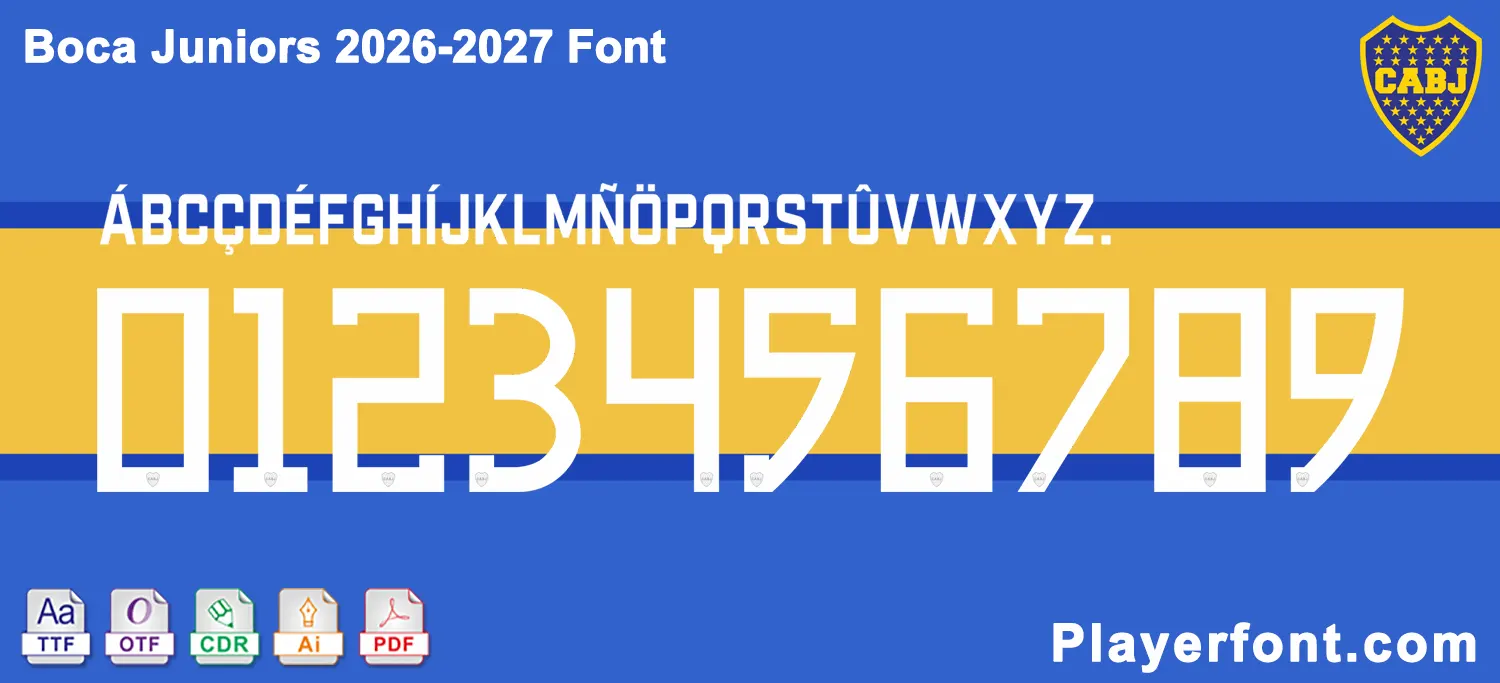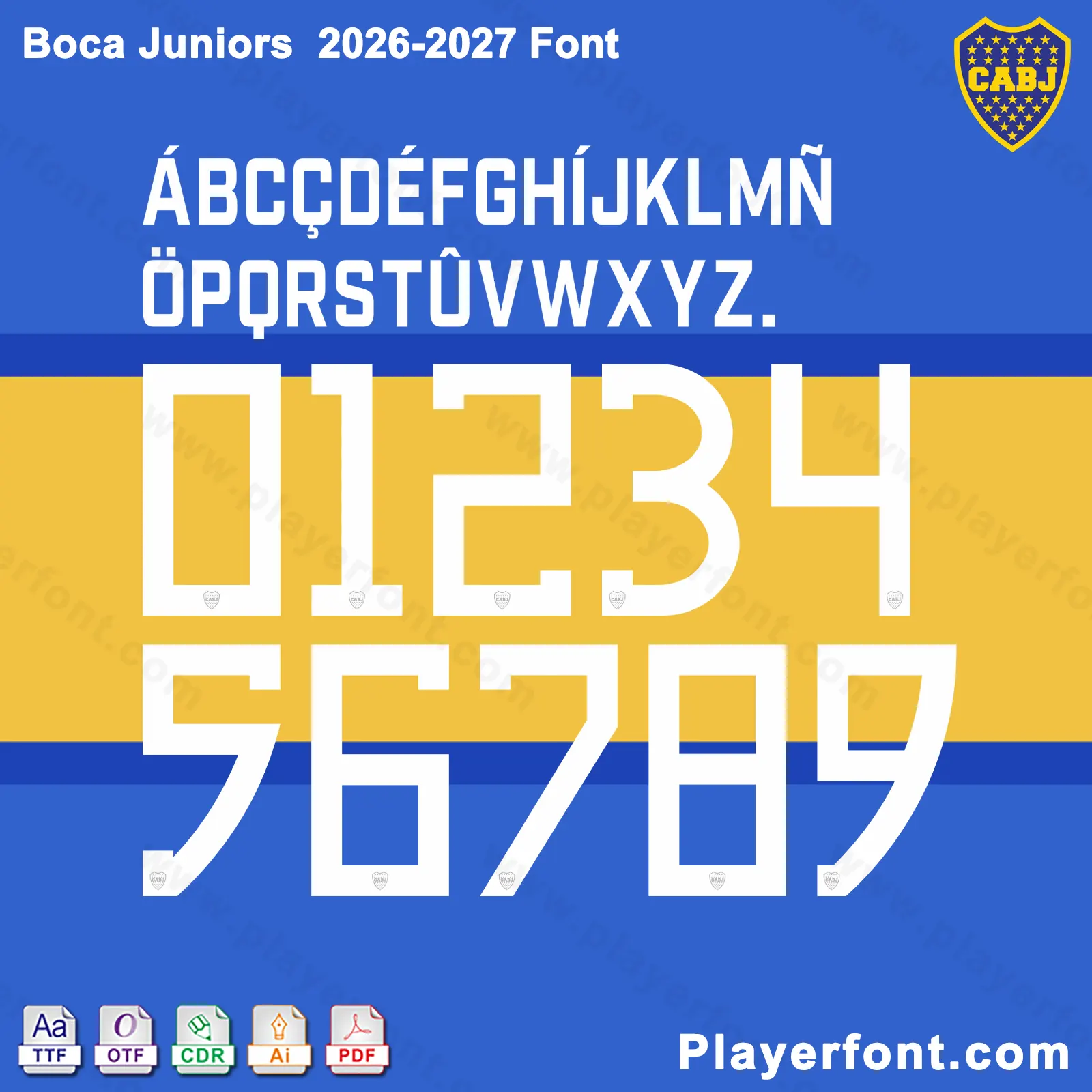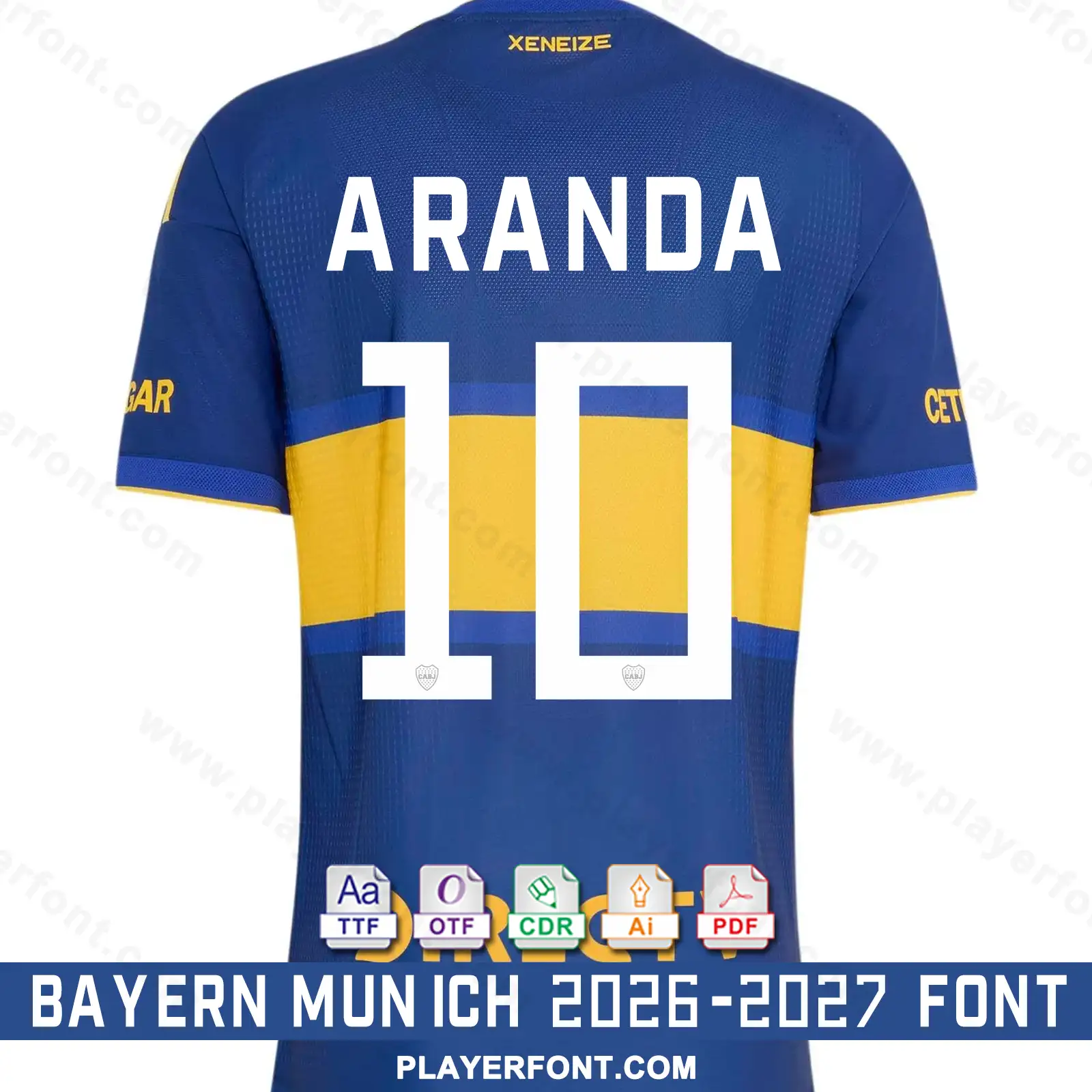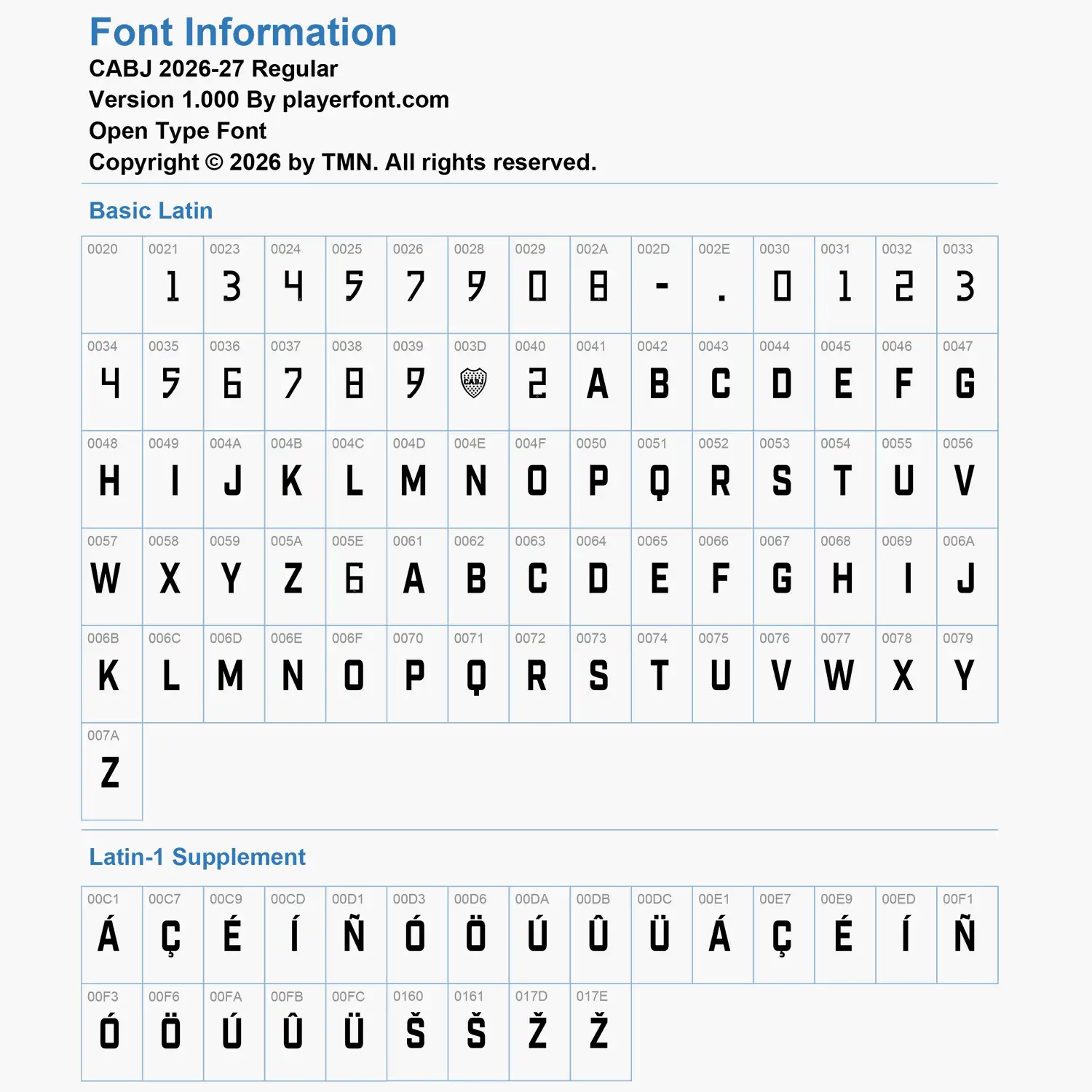
Elevate your sports jersey mockups, football custom graphics, and vector apparel printing projects with the high-quality Boca Juniors 2026-2027 Font Download. Masterfully engineered by Playerfont.com, this high-performance typography set replicates the official-style numbers and distinct lettering featured on the pitch for Club Atlético Boca Juniors’ home and away campaigns.
- Modern Angular Block Layout: Contains a sharp, tall condensed uppercase character set, custom geometric block letters, numbers (0-9), hyphens, and periods.
- Advanced International Accent Support: Includes an expansive set of diacritics spanning Latin-1 Supplement (such as Á, Ç, É, Í, Ñ, Ó, Ö, Ú, Ü, Š, and Ž) ensuring flawless rendering for global football stars and Spanish naming requirements (such as Aranda, etc.).
- Authentic Visual Details: The jersey numbers feature bold geometric block structures with distinctive angular diagonal cuts, subtly embedded with the official CABJ (Club Atlético Boca Juniors) star crest outline centered at the base of each digit.
| Design Feature | Solid White Angular Geometric Structure with CABJ Crest Base |